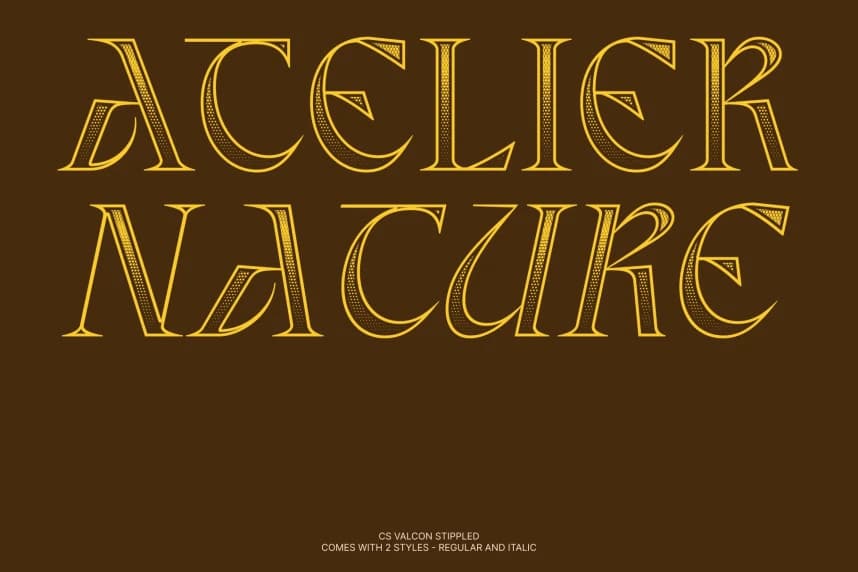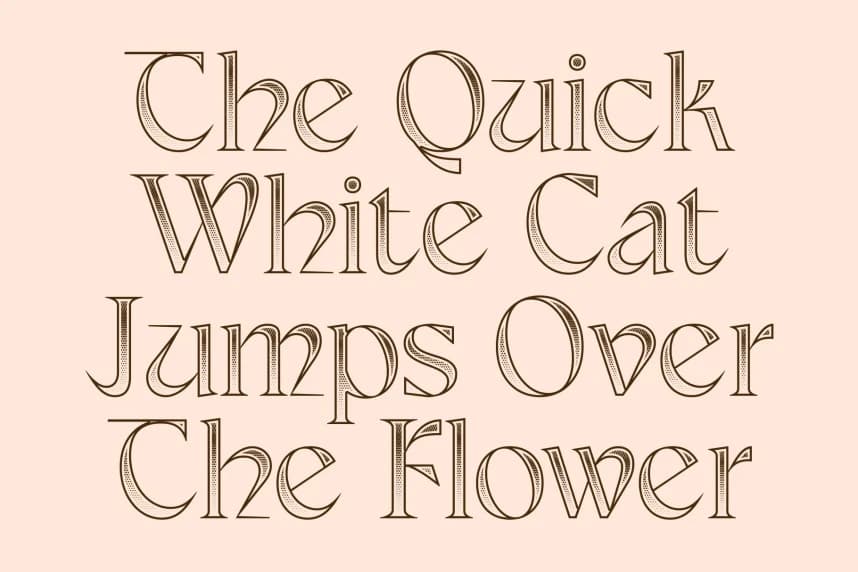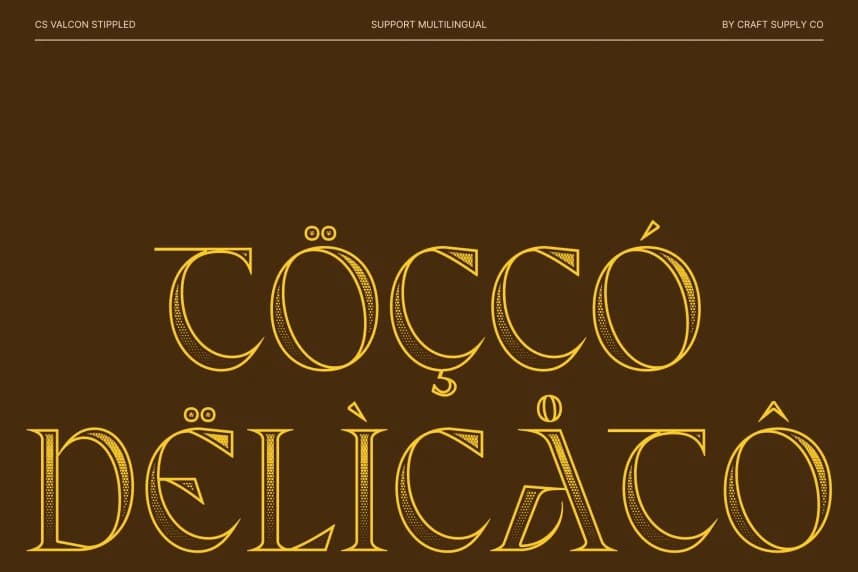
CS Valcon Stippled Font
CS Valcon Stippled Font – Uncial Font with Timeless Textured Elegance Classic Uncial Style with Stippled Character. This is a classic uncial display serif font inspired by the artistry of medieval handwriting.